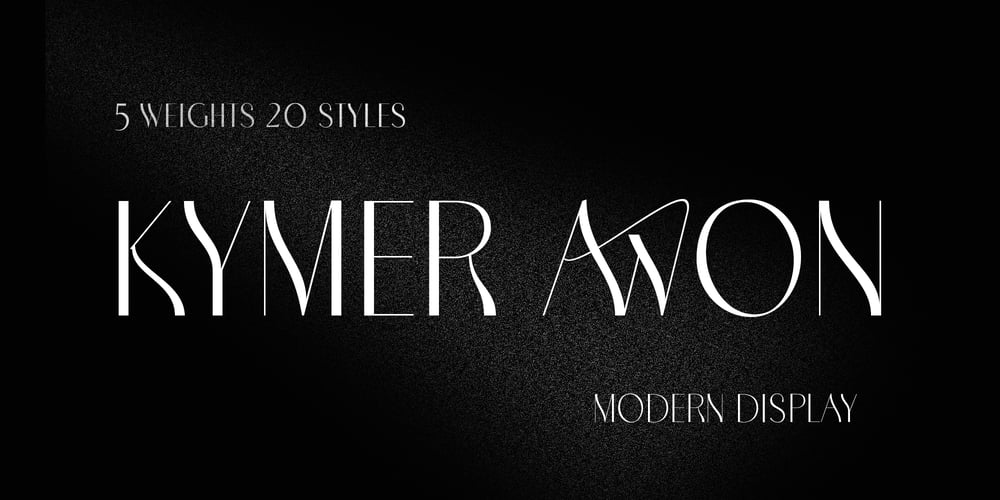
Kymer Awon Font Family was designed by Ryul Davidson and published by Brenners Template. Kymer Awon contains 20 styles and family package options. The Kymer Awon font family includes 5 weights and 20 styles.Whereas traditional Sans Serif typefaces show low contrast, this family has high contrast.And It brings out modern elegance through curved variations of glyphs with diagonal bars.Alternative fonts with Small Caps inherit the vertical stem width of the default capitals.These elegant and contemporary styles have an affinity to fit into any of your design work.